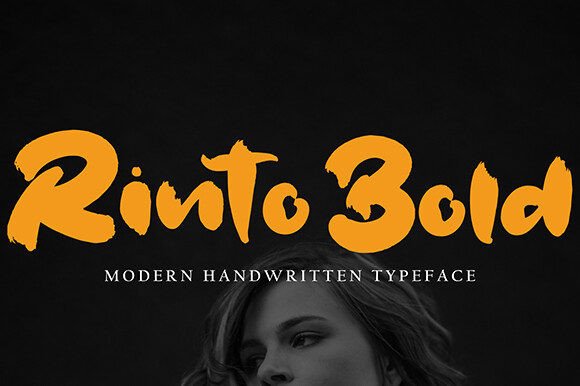
Prepare to be enthralled by the exquisite beauty of Rinto Bold, a font that oozes elegance and charm, crafted meticulously by the design auteurs, Pineungtype and Missinklab. Immerse yourself in the enchanting world of calligraphy with this mesmerizing script font, a perfect blend of timeless grace and contemporary flair.
Rinto Bold is not just a font; it's an artistic masterpiece that breathes life into your creative endeavors. Whether you're a seasoned designer or just starting your design journey, this font will ignite your imagination and elevate your projects to new heights. Its enchanting strokes will add a touch of sophistication and personality to your designs, leaving an indelible impression on your audience.
Picture the allure of wedding invitations adorned with Rinto Bold's graceful curves, conveying the joyous occasion with a touch of timeless elegance. Envision thank-you cards that express gratitude with a heartfelt charm, or greeting cards that carry heartfelt messages with an air of sophistication. Logos and business cards crafted with Rinto Bold exude professionalism and creativity, making a lasting impact on potential clients.
Rinto Bold's versatility extends beyond formal settings. Its enchanting touch adds a whimsical charm to quotes and social media posts, making them stand out from the digital clutter. Unleash your creativity and explore the endless possibilities of this captivating font, transforming ordinary designs into works of art.